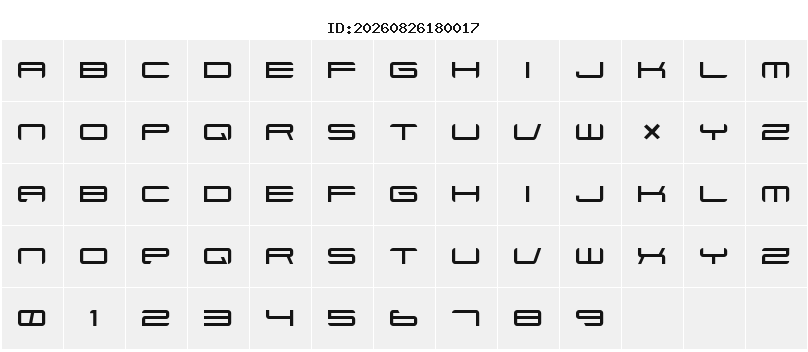
Xenotron Preview
• Font Name: Xenotron
• Full Font Name: Xenotron
About Xenotron.ttf
Xenotron.ttf is a modern, elegant sans-serif font designed for ultimate readability and visual harmony. Perfect for branding, headlines, web design, and print materials.